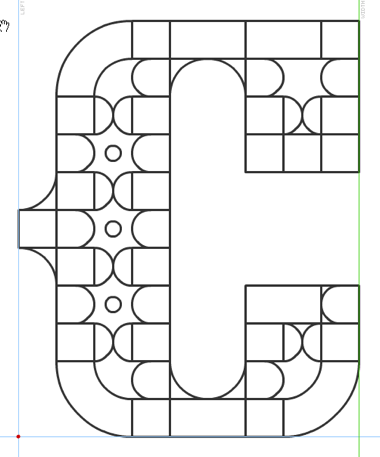
zchwarze deco eYe / FS is a fantastic addition to zchwarze eYe / FS. The floral ornaments in the font fit very well well with your sample. Very nice work.